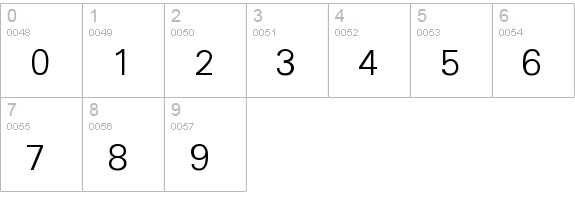
Nebula Light is a refined, elegant variant in the Nebula typeface family \xE2\x80\x94 well suited to elegant body text, refined sub-headings, and luxury branding.
The Nebula Light font is a modern and elegant typeface that exudes sophistication and style. Its clean lines and graceful curves make it perfect for a wide range of design projects, from branding and advertising to invitations and packaging. The light weight of the font gives it a delicate and airy quality, making it ideal for conveying a sense of freshness and creativity. What's even better is that Nebula Light font is available for free download at FontsMarket.com. This means you can easily access this stunning typeface and start using it in your projects right away, without any cost involved. Don't miss out on the opportunity to enhance your designs with the beauty and versatility of Nebula Light font - download it now and let your creativity soar!